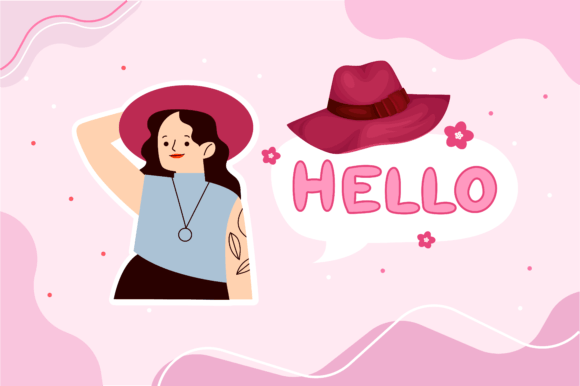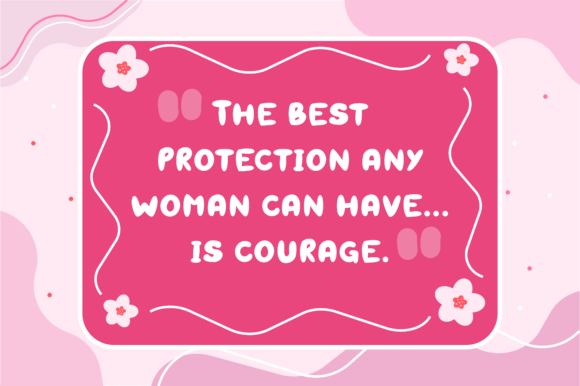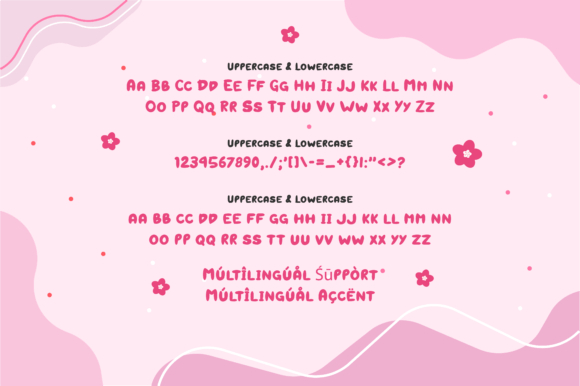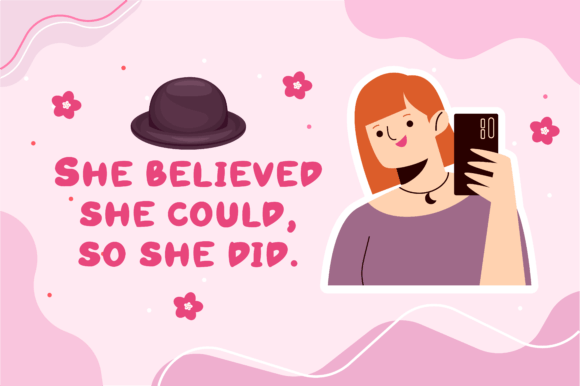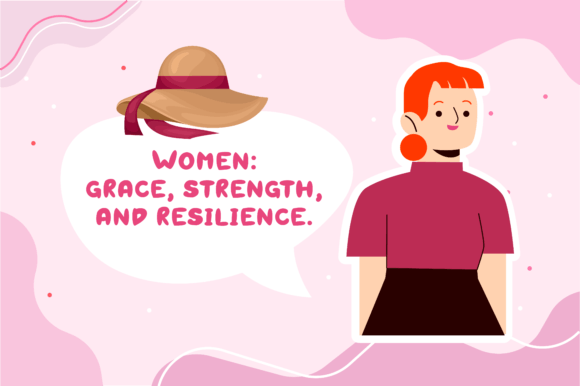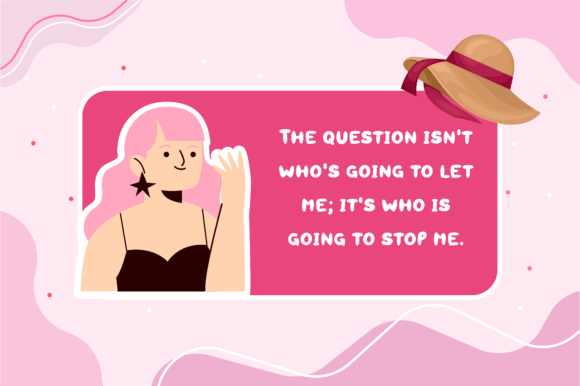
Introducing Capelina: The Playful Typeface That Sparks Joy!
Are you tired of using the same old fonts in your designs? Look no further than Capelina, the whimsical display font that brings a sense of fun and wonder to your creations. With its playful curves and friendly letterforms, Capelina captivates the imagination of children and the young at heart, making it perfect for a wide range of design projects.
A Font That Sparks Imagination
Capelina is more than just a font – it’s an experience. Its unique and playful design elements are sure to spark imagination and creativity in anyone who uses it. Whether you’re designing a children’s book, creating a poster for a kids’ event, or developing a playful brand identity, Capelina is the perfect choice. Its friendly and approachable letterforms make it easy to read and understand, while its whimsical curves add a touch of magic to your designs.
Multilingual Support
One of the standout features of Capelina is its multilingual support. This font allows you to create delightful designs in various languages, making it perfect for designers and crafters who work with international clients or want to reach a broader audience. Whether you’re designing for a global brand or a local business, Capelina has got you covered.
Capelina is a versatile font that can be used in a wide range of design projects, including:
- Children’s books: Add a touch of whimsy and wonder to your storybook designs with Capelina’s playful font.
- Posters: Create eye-catching posters for kids’ events, parties, or promotions with Capelina’s bold and playful letterforms.
- Playful branding: Develop a unique and memorable brand identity with Capelina’s friendly and approachable font.
- Crafting projects: Add a personal touch to your crafting projects, such as handmade cards, gift tags, or DIY decorations, with Capelina’s whimsical font.
Unleash Your Creativity with Capelina
Capelina is more than just a font – it’s a typographic adventure waiting to happen. With its playful curves and friendly letterforms, it’s the perfect choice for designers and crafters who want to add a touch of joy and enchantment to their designs. Whether you’re a seasoned designer or just starting out, Capelina is sure to inspire your creativity and take your designs to the next level.
Key Features of Capelina
- Whimsical display font with playful curves and friendly letterforms
- Multilingual support for designing in various languages
- Perfect for children’s books, posters, playful branding, and crafting projects
- Easy to read and understand, with a friendly and approachable design
- Unique and playful design elements that spark imagination and creativity
Get Ready to Spark Joy with Capelina!
Are you ready to add a touch of whimsy and wonder to your designs? Look no further than Capelina, the playful typeface that sparks joy! With its unique and playful design elements, multilingual support, and versatility, Capelina is the perfect choice for designers and crafters who want to create delightful designs that captivate and inspire. Try Capelina today and embark on a typographic adventure that transcends borders, spreading joy and enchantment worldwide!
In conclusion, Capelina is a one-of-a-kind font that is sure to bring a sense of fun and wonder to your designs. With its playful curves, friendly letterforms, and multilingual support, it’s the perfect choice for a wide range of design projects. Whether you’re a designer, crafter, or simply someone who loves to create, Capelina is sure to inspire your creativity and take your designs to the next level. So why wait? Try Capelina today and start sparking joy with your designs!